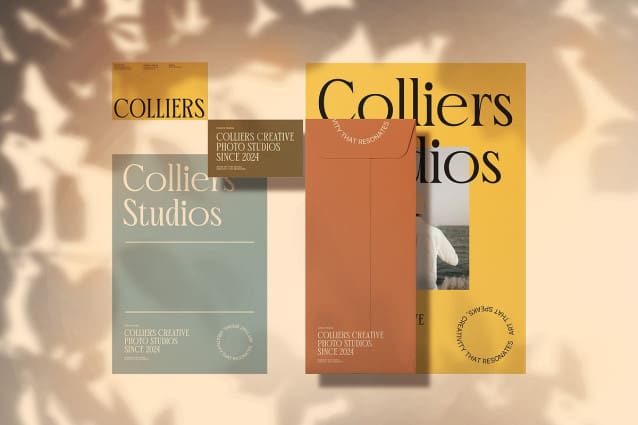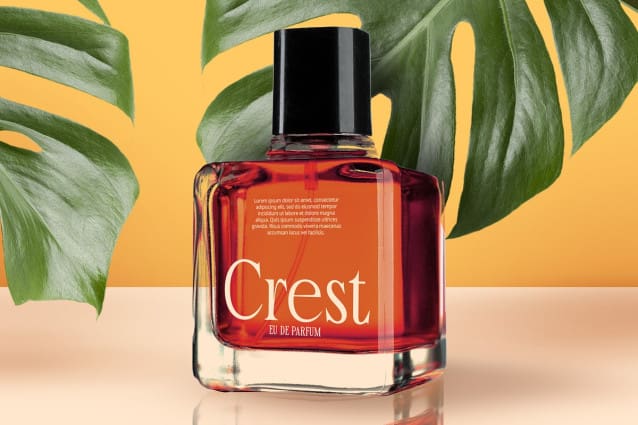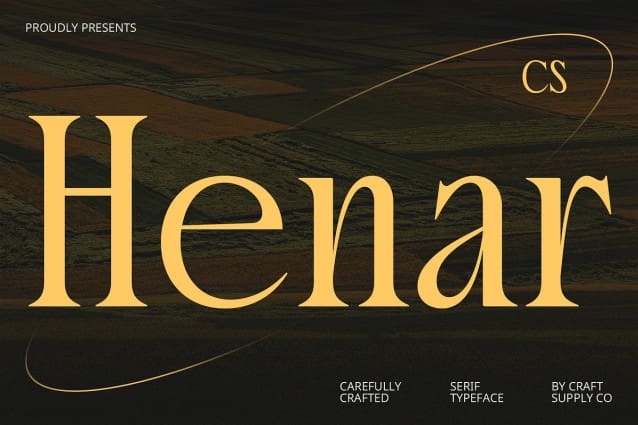
CS Henar Font
CS Henar Font is a modern serif font that embodies elegance and sophistication through its minimalist and clean design. With refined letterforms and subtle detailing, this font captures the essence of luxury, making it an exceptional choice for high-end branding, editorial layouts, and sophisticated invitations.
Refined Letterforms for a Distinct Impression Each character of CS Henar is crafted with precision, showcasing smooth curves and balanced proportions that enhance its overall aesthetic appeal. The minimalist design allows for versatility while still delivering a striking presence, ensuring your text stands out in any context. Whether used in print or digital media, CS Henar brings a touch of refinement to your projects, making it ideal for luxury brands and upscale designs.
Versatile Applications for Elegant Design From exquisite invitations to chic editorial spreads, CS Henar adapts seamlessly to various applications. Its elegance shines through in branding materials, offering a polished look that resonates with sophistication. This font is particularly effective in designs that aim to convey exclusivity and class, ensuring that every project reflects a high standard of quality.